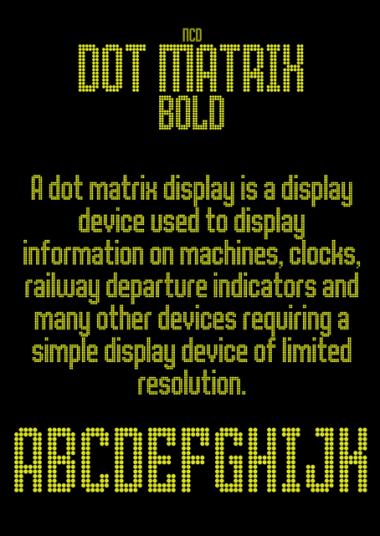
NCD Dot Matrix Bold
Cloned from
NCD Dot Matrix
Clone of NCD Dot Matrix.
This is very pleasing to the eye. Add some Photoshop magic and the can glow like Broadway. :)
...the
dots
can...
This works a treat.